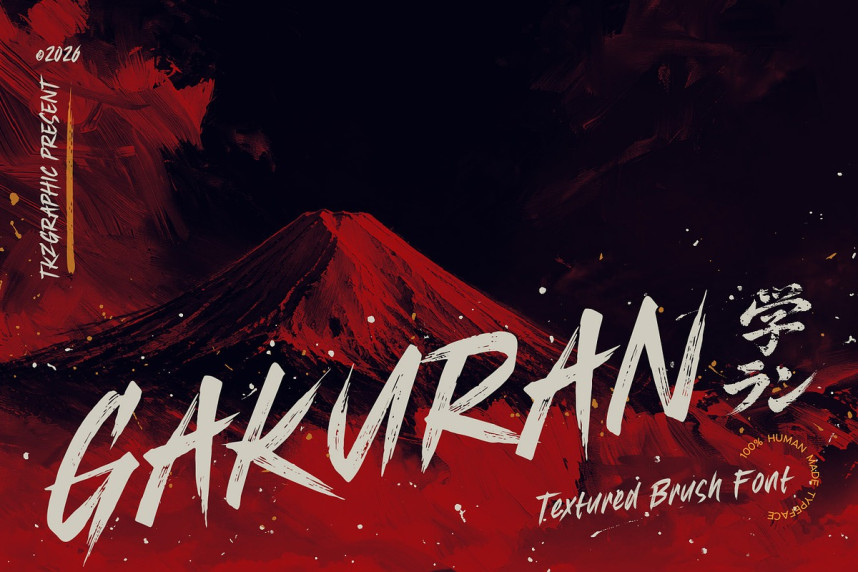
Gakuran Brush Font is a bold, flat brush-style display font featuring quick, textured strokes that capture the raw energy of hand-drawn lettering. Perfect for eye-catching headlines and standout titles.
Designed with multilingual support, Gakuran includes a wide range of Latin characters and diacritics, allowing it to work seamlessly across multiple languages.
Ideal for logos, posters, branding, quotes, and titles, Gakuran delivers a natural handwritten style with a timeless feel.